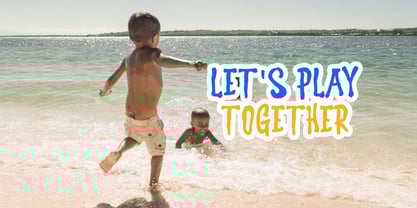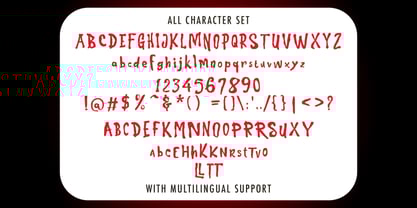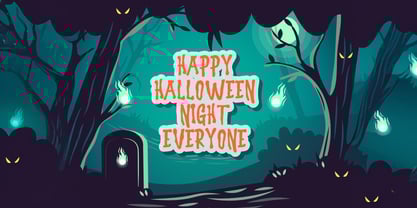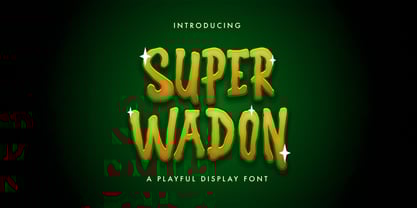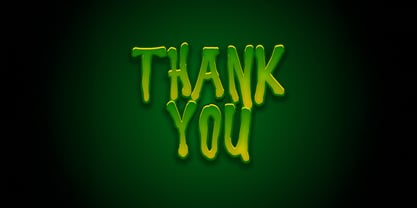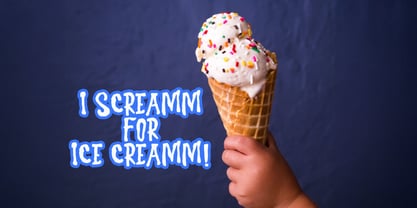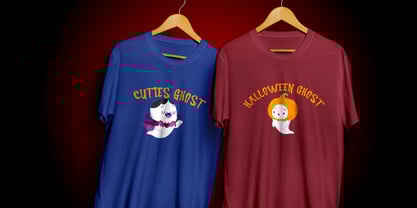
The Super Wadon Font Family was designed by Virgiawan Listanto and published by Stringlabs Creative Studio. Super Wadon contains 1 styles.
Super Wadon is a haunted display font packed with eerie vibes and chilling character. With jagged edges, spooky curves, and a bold design, this font is perfect for adding a ghostly twist to any horror-themed project. Whether you're designing for Halloween, haunted houses, or spine-tingling posters, Super Wadon brings the fright factor in style.